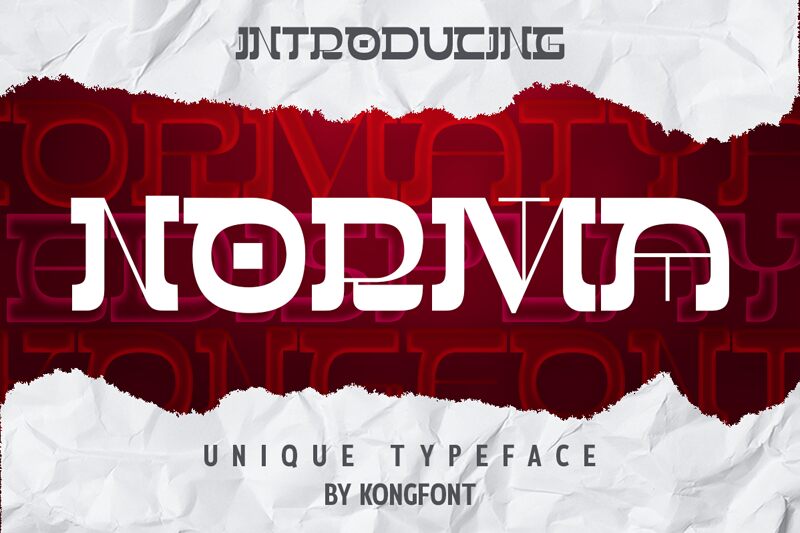
Norma font designed by Kong Font is a free font with an eye-catching futuristic appearance. Inspired by avant-garde and high-tech shaped structured letters, the font achieves a modern geometric look. This contemporary, innovative effect is achieved through every detail of each of the characters.
Technology branding is probably this typeface’s perfect use case. Other popular applications include futuristic design projects, innovative product packaging, book titles and covers, video games, web and mobile interfaces, and magazines, especially those that focus on technology topics.